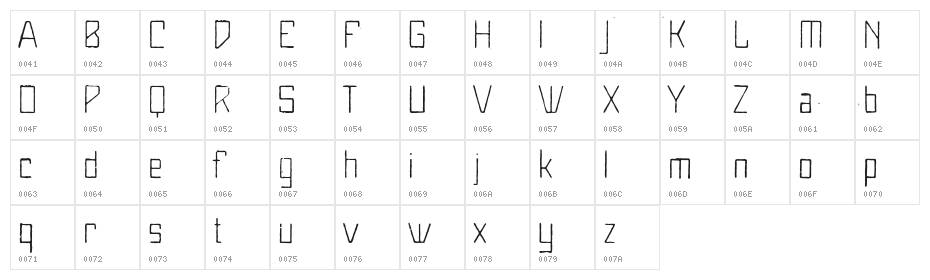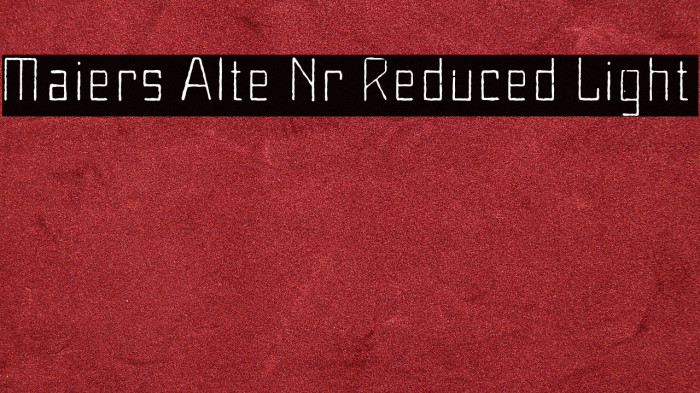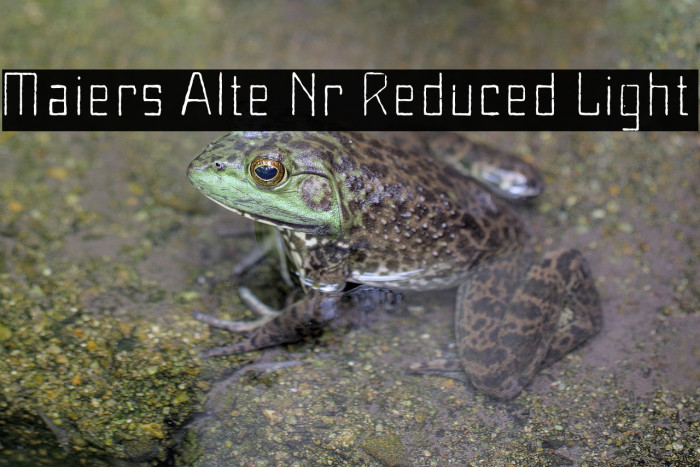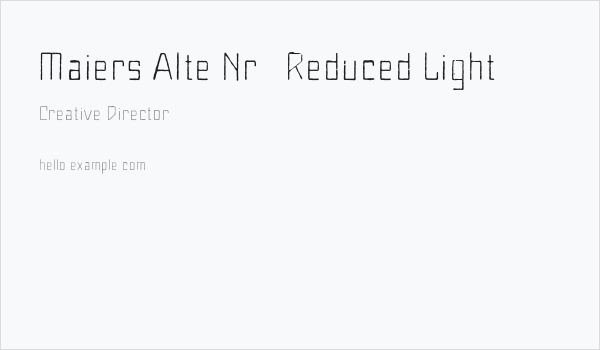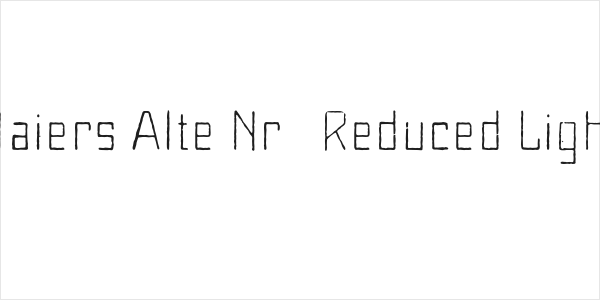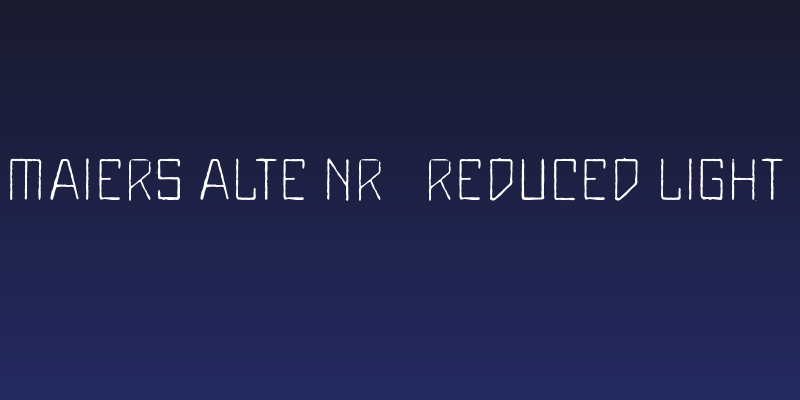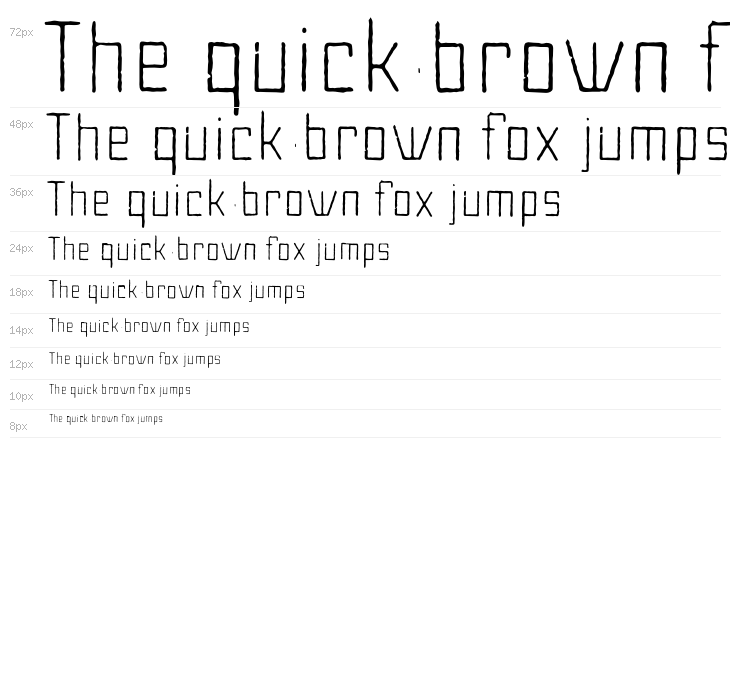
Maiers Alte Nr.8 Reduced Light Font
Maiers Alte Nr.8 Reduced Light Description
This font features a unique, hand-drawn appearance with a rustic and vintage feel. The characters are constructed with a consistent stroke width, giving them a monolinear look. The edges are slightly rough, adding to the handcrafted aesthetic. The uppercase letters are tall and narrow, while the lowercase letters maintain a similar width, creating a cohesive look across the alphabet. The numerals and special characters follow the same design principles, ensuring uniformity. This font's distinctive style makes it stand out, offering a blend of historical charm and artistic flair.
| Use Case | Logos, Posters, Packaging |
| Proposed Projects | Ideal for projects that require a vintage or handcrafted touch, such as branding for artisanal products, retro-themed posters, or creative packaging designs. |